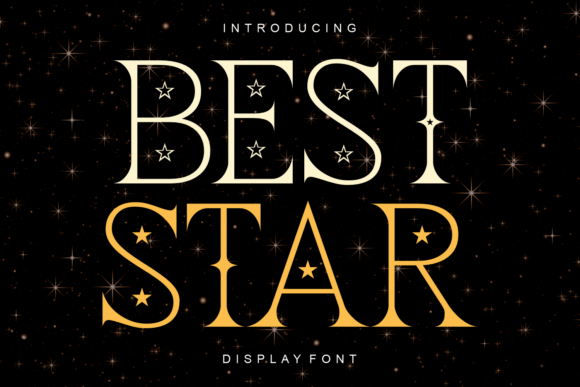
Best Star Font: Elevate Your Designs with a Touch of Elegance
Are you searching for a font that can add a touch of elegance and sophistication to your designs? Look no further than the Best Star font. This exquisite fusion of decorative and star fonts is designed to turn heads and make a lasting impression. In this article, we’ll explore the features and benefits of the Best Star font and how it can elevate your designs to the next level.
Introducing Best Star: A Versatile Typeface
Best Star is a versatile typeface that combines beauty and authenticity for a truly unique look. Its decorative and star-inspired elements make it perfect for a wide range of design applications, from wallpapers and craft projects to social media graphics and photography. Whether you’re a designer, artist, or DIY enthusiast, Best Star is an excellent choice for adding a touch of elegance and sophistication to your work.
Perfect for Display and Print Mediums
Best Star is designed to make a striking display on various mediums, including wallpapers, craft projects, and print materials. Its clean aesthetic and unique character make it perfect for accentuating apparel items, book covers, and greeting cards. Additionally, its versatility makes it an ideal choice for branding, logotypes, and packaging.
Why Choose Best Star?
- Unique and Eye-Catching: Best Star’s decorative and star-inspired elements make it stand out from other fonts, adding a touch of elegance and sophistication to your designs.
- Versatile: Best Star is perfect for a wide range of design applications, from display and print mediums to branding and packaging.
- Multilingual Support: Best Star transcends borders, catering to Eastern European settings with ease.
- Seasonal and Fresh: Best Star keeps up with the trend, ensuring your designs stay relevant and fresh.
Applications of Best Star
Best Star is perfect for a wide range of design applications, including:
- Branding: Use Best Star to shape your brand’s identity on cards, business cards, and other marketing materials.
- Logotypes: Infuse every magazine page with a unique character using Best Star.
- Packaging: Add a touch of elegance and sophistication to your packaging with Best Star.
- Motivational Quotes: Use Best Star to create inspiring and eye-catching motivational quotes.
- T-Shirts: Make a unique statement with each wear using Best Star on t-shirts.
- Greeting Cards: Add a delightful touch to greeting cards with Best Star.
- Social Media Graphics: Use Best Star to create eye-catching social media graphics that stand out from the crowd.
- Photography: Add a touch of elegance and sophistication to your photography with Best Star.
Tips and Tricks for Using Best Star
- Experiment with Different Sizes: Play around with different sizes to find the perfect fit for your design.
- Mix and Match: Combine Best Star with other fonts to create a unique and eye-catching design.
- Use it as a Accent Font: Use Best Star as an accent font to add a touch of elegance and sophistication to your design.
In conclusion, Best Star is an exquisite fusion of decorative and star fonts that can elevate your designs to the next level. Its versatility, unique character, and multilingual support make it perfect for a wide range of design applications. Whether you’re a designer, artist, or DIY enthusiast, Best Star is an excellent choice for adding a touch of elegance and sophistication to your work. So, why wait? Create an aesthetic journey with Best Star and take your designs to new heights!
- What is Best Star? Best Star is a decorative and star-inspired font designed to add a touch of elegance and sophistication to your designs.
- Is Best Star multilingual? Yes, Best Star supports multiple languages, including Eastern European settings.